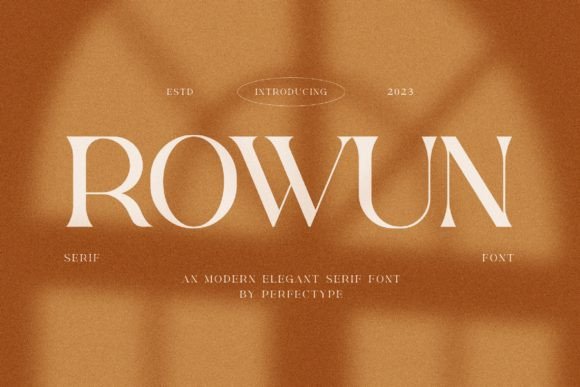
Introducing Rowun Font, the epitome of elegance and modernity in the world of typography. This exquisite serif typeface, created by Perfectype, is the answer to all your design needs. With its classy and contemporary style, Rowun Font is the perfect choice for any project that requires a touch of sophistication.
Whether you are working on branding projects, logos, wedding designs, or social media posts, Rowun Font will effortlessly elevate your creations to new heights. Its timeless appeal adds a sense of prestige and refinement, making your work stand out from the crowd.
But Rowun Font doesn't stop there. It goes beyond aesthetics and embraces functionality with its high level of readability. Your audience will be captivated by the clarity and legibility of this font, ensuring that your message is conveyed effortlessly.
Imagine the impact Rowun Font can have on your advertisements, product packaging, and designs. It infuses your visuals with a sense of professionalism and allure, leaving a lasting impression on potential customers. It is the key to unlocking the full potential of your visual marketing efforts.
Photographers and artists will also appreciate the versatility of Rowun Font. Its elegant strokes and clean lines make it the perfect choice for watermarks, labels, and invitations. Add a touch of sophistication to your stationery and make a lasting impression on your recipients.
With Rowun Font, creativity knows no bounds. Its versatility and adaptability allow you to explore endless possibilities. From intricate designs to minimalistic layouts, this font effortlessly adapts to your vision, providing you with the freedom to express yourself fully.
So why wait? Embrace the elegance and modernity of Rowun Font and elevate your designs to new heights. Let your creativity soar and captivate your audience with the power of typography. Unlock the potential of your projects and leave a lasting impression with Rowun Font.